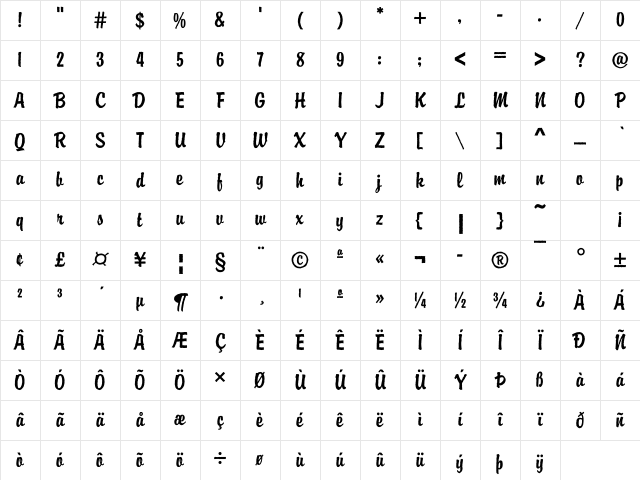
Brody41 Becker is a composed and adaptable typeface that performs quietly and consistently across a wide range of design contexts.
Pro Tip: Use Brody41 Becker in both headline and body roles to test its range before committing to a single application.